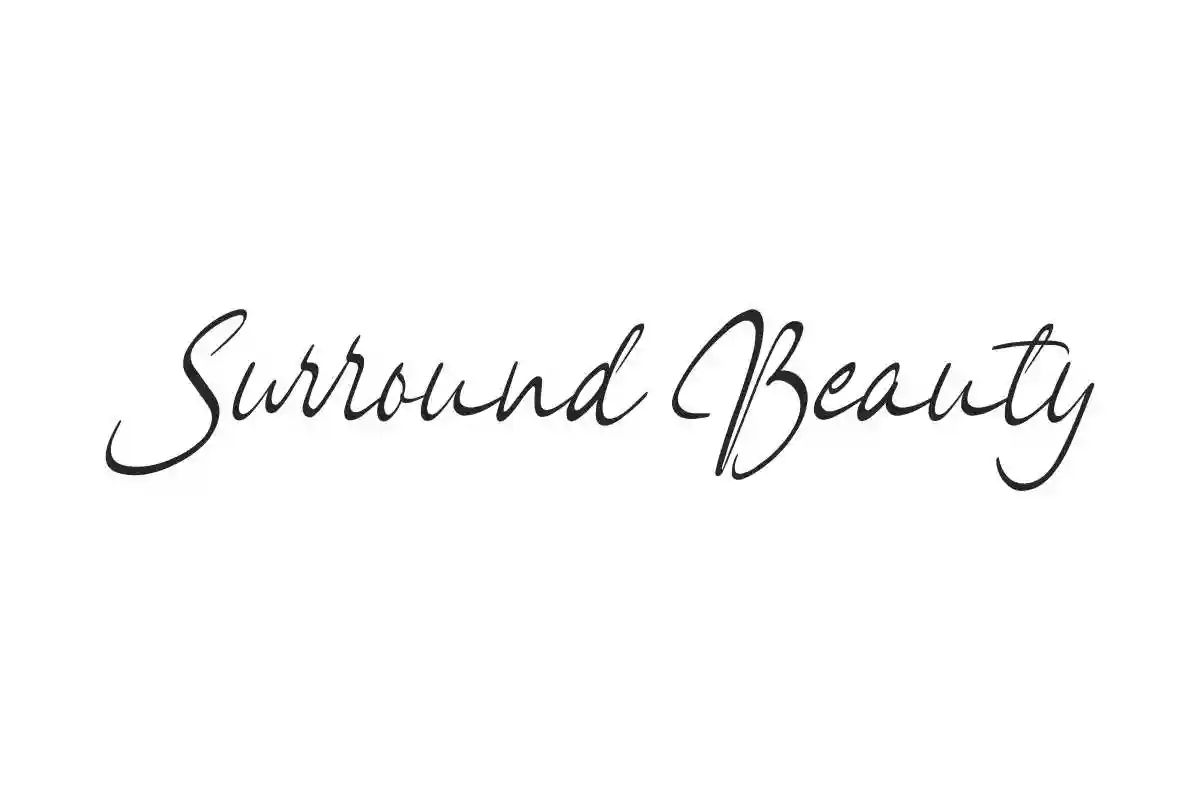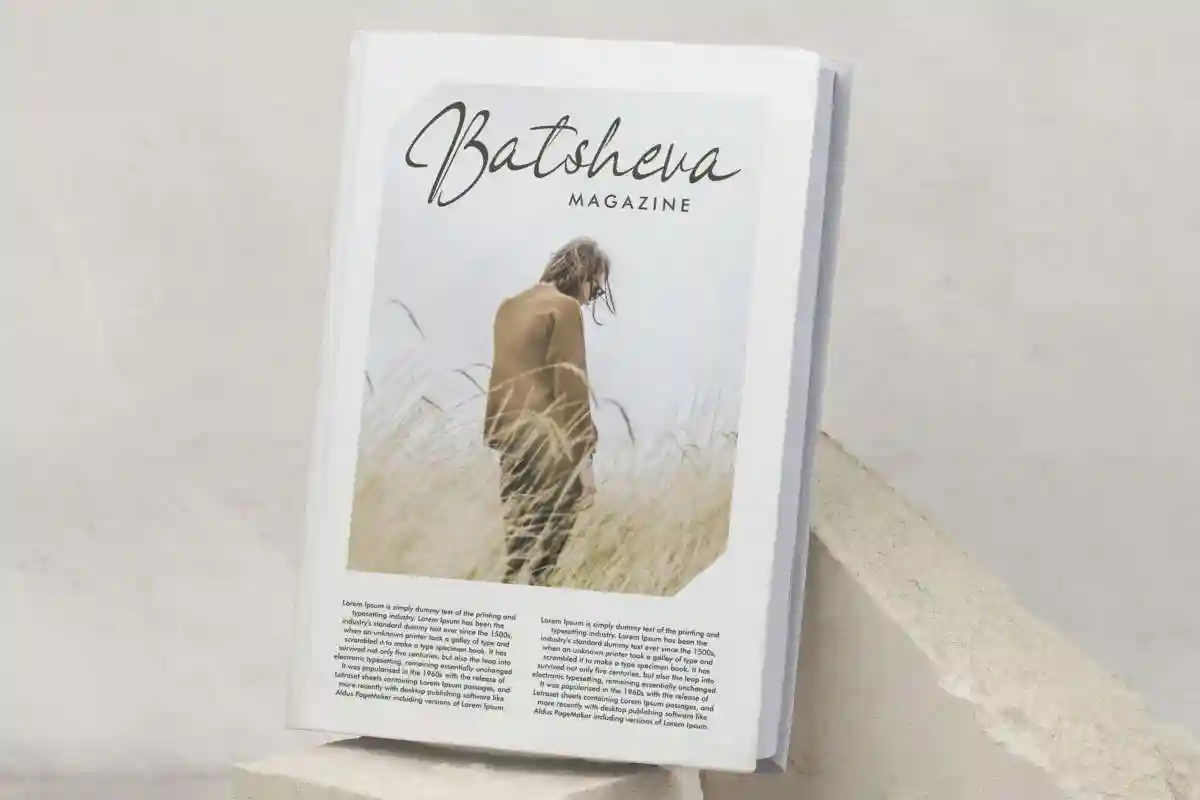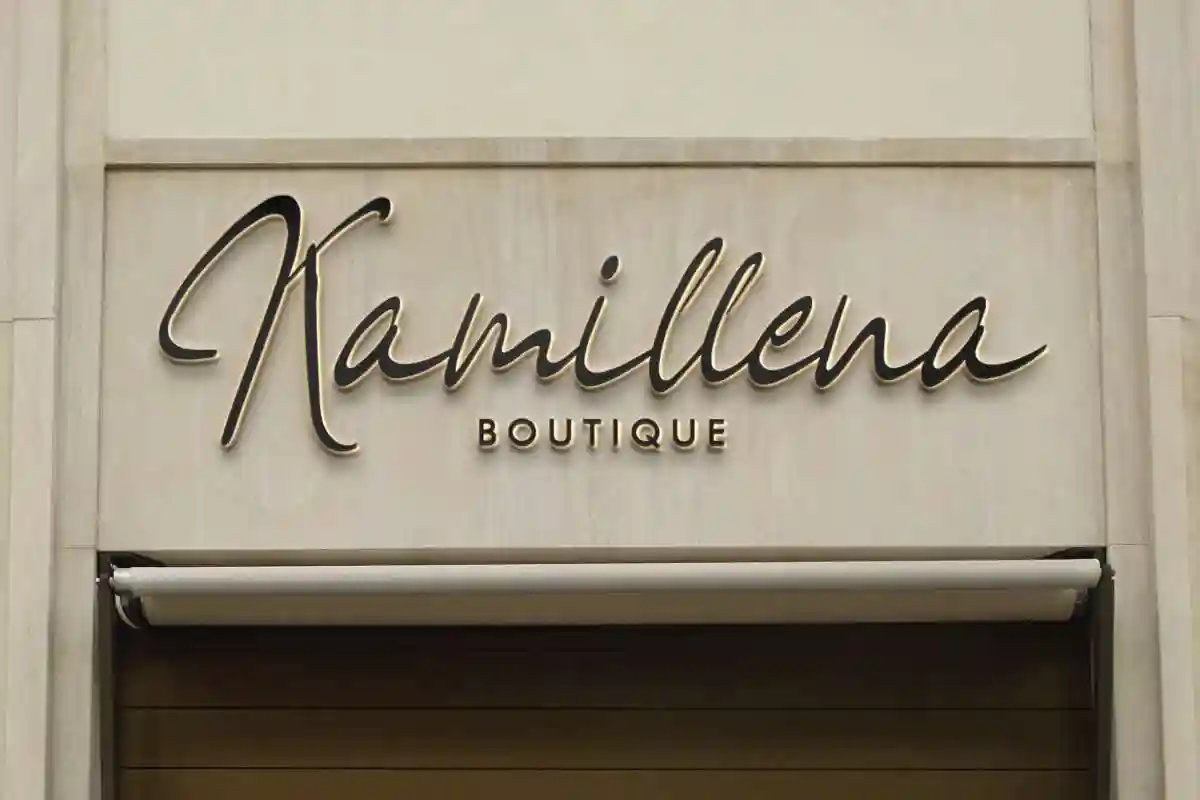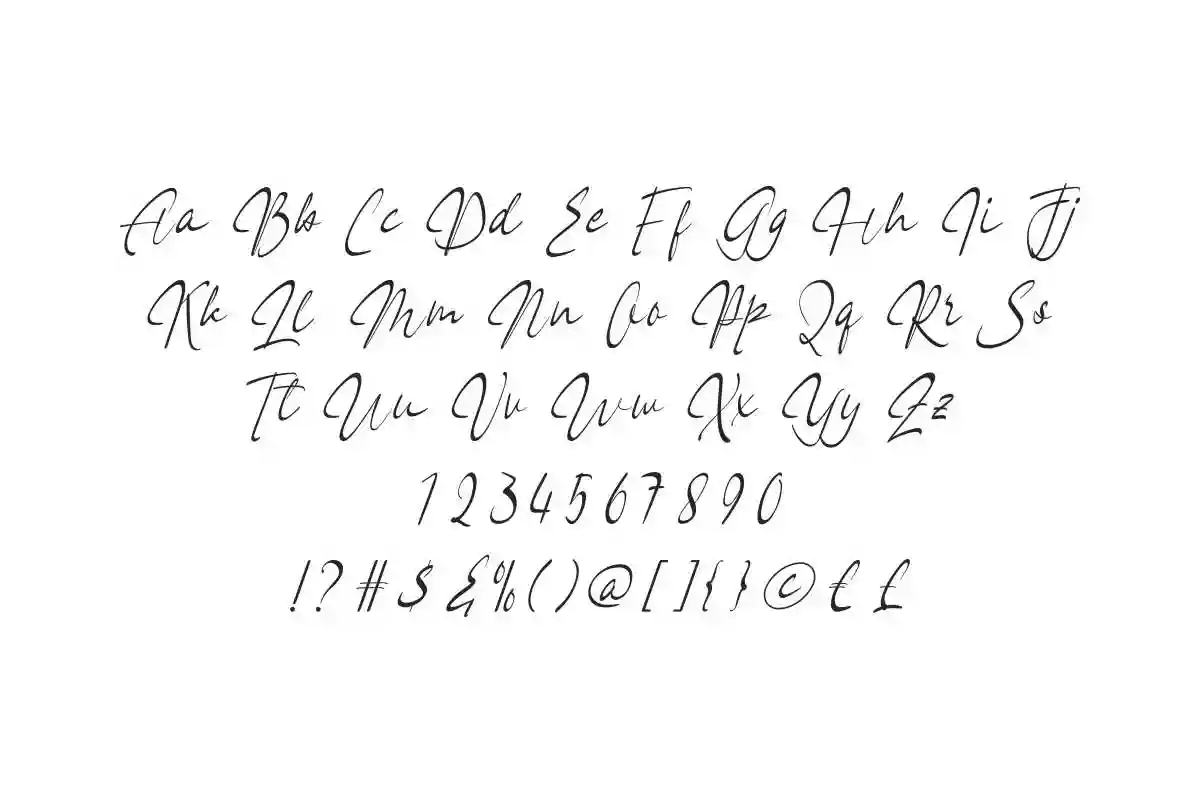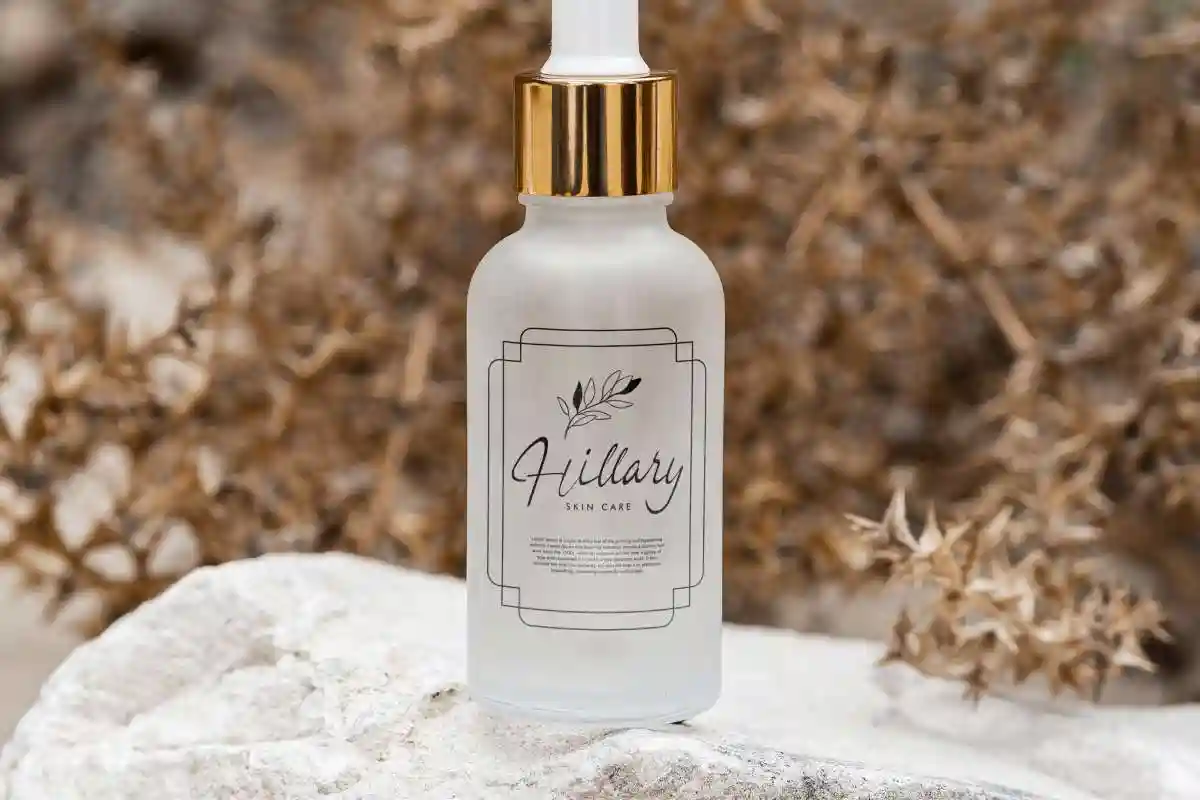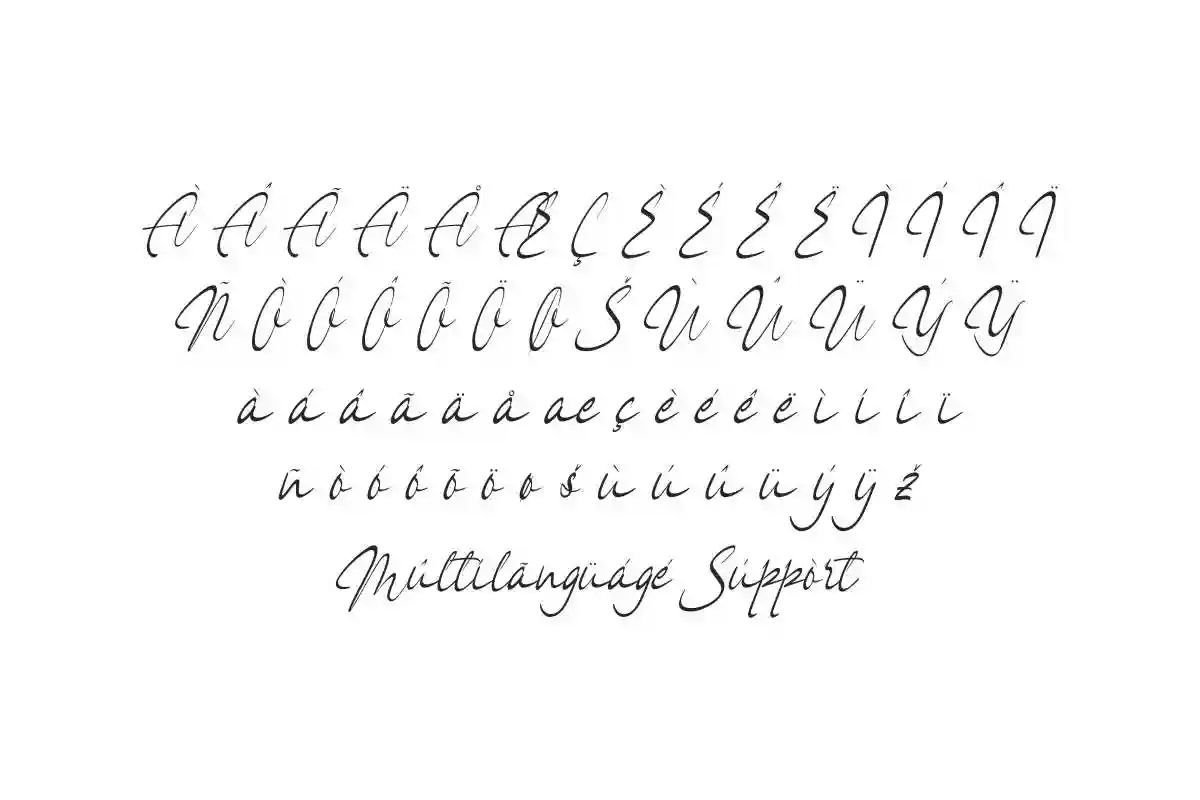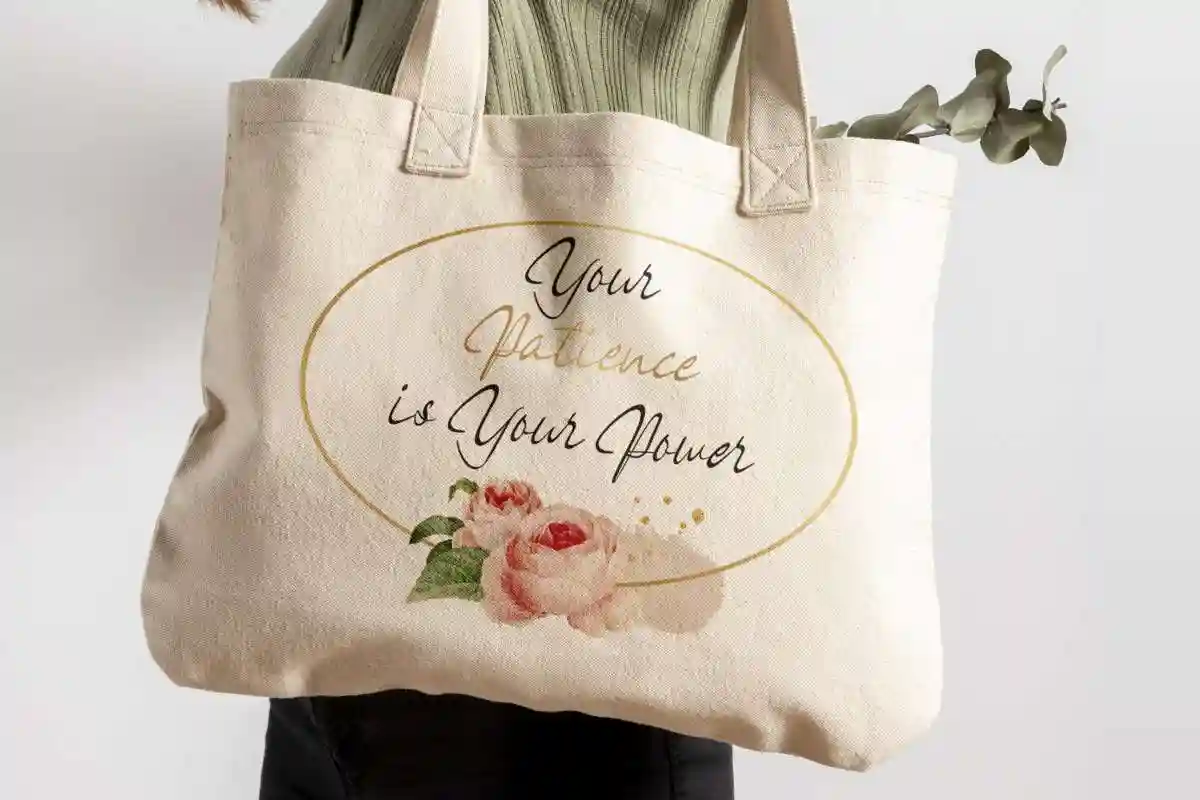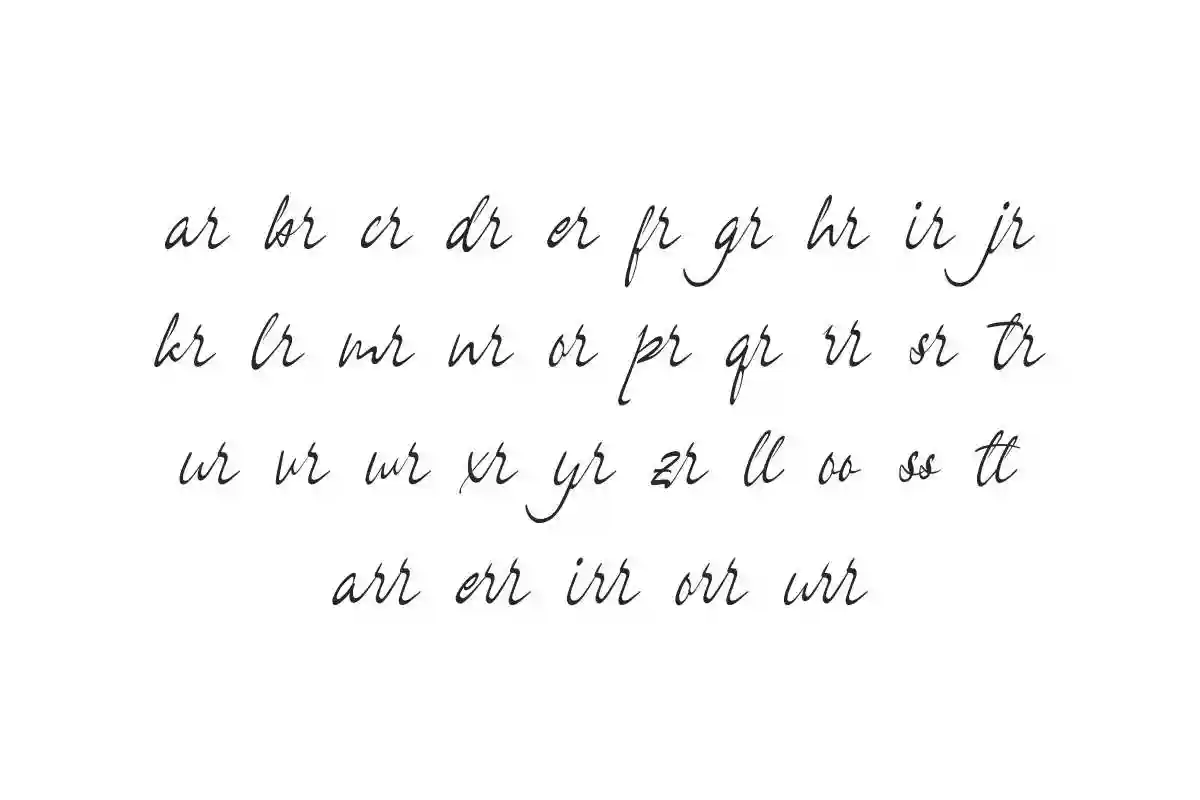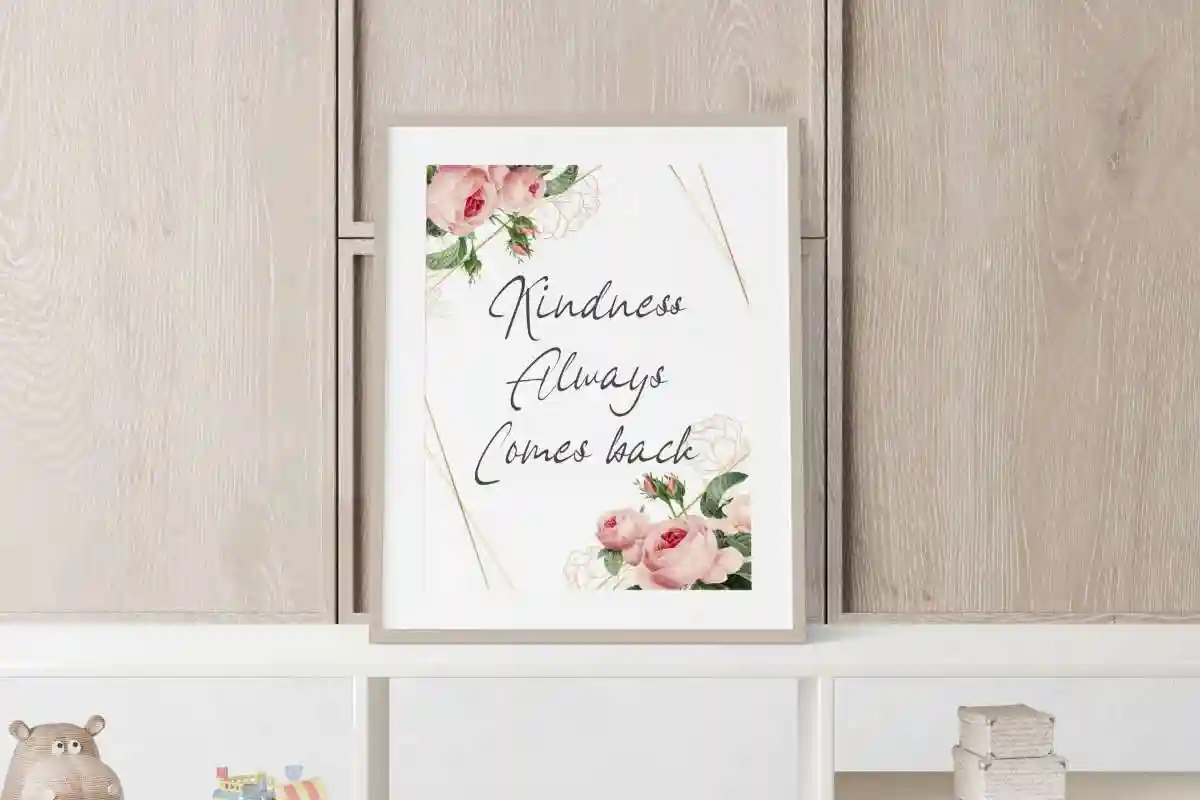
Surround Beauty Font is a stunning handwriting calligraphy font, specially created by NihStudio. Use this font for boutique, box jewelry, brand logo, cosmetic, quotes, etc.
Surround Beauty Font is a beautiful script font with calligraphy style. This font has long brush strokes and has beauty in every touch. Use this font for your creative projects including : box jewelry, catalog, headline, invitation, labels, product packaging, quotes, screen printing, signage, stationery, web page, and more!
Surround Beauty Font will be great for whatever your business, including : advertisement, beauty product, fashion, event or wedding organizer, florist, jewelry, etc. This lovely font works well when paired with other fonts and is still easy to read.
Surround Beauty Font comes with a full set of Uppercase and Lowercase Basic Characters, Number, Punctuation, Symbol, Ligature, and also supports multilingual characters. Ready to use both on Windows machine or Mac with simple installations. It’s tested to work well in the Adobe Apps (Illustrator, Adobe InDesign, Adobe Photoshop) CorelDraw, and others. PUA Encode Characters means you can access all the glyphs and other additional characters easily.